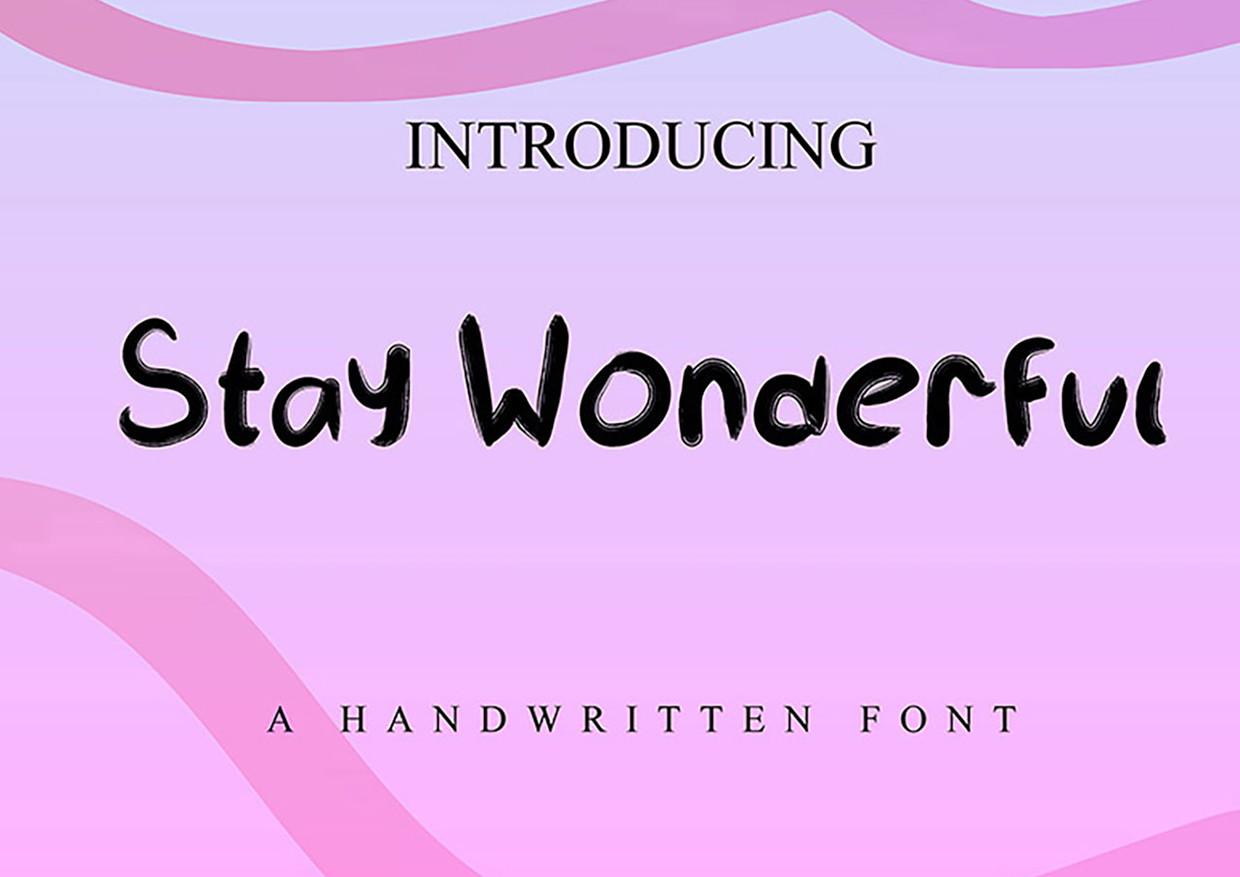
Stay Wonderful is a trendy and adaptable brushed handwritten font. Its informal style and casual vibe will make this font a go-to choice for each of the creations that require a relaxed touch.